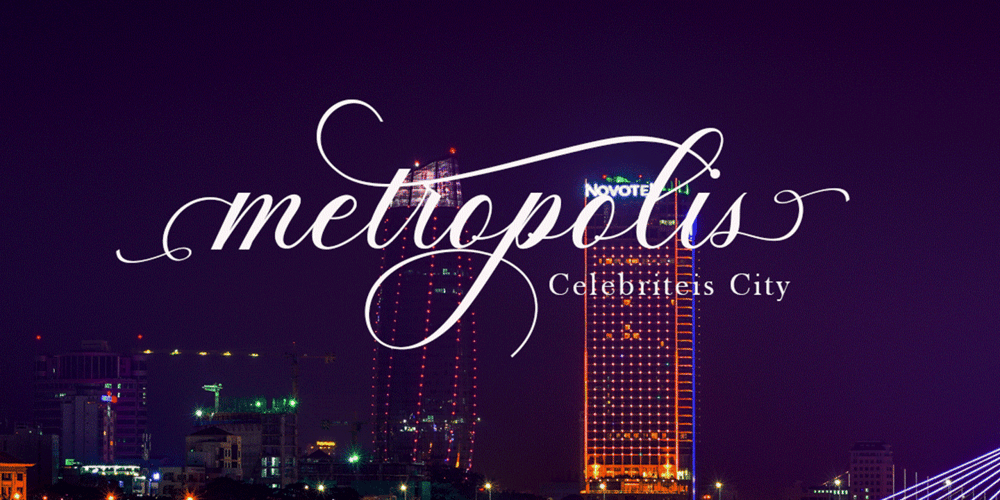
Anitha
Anitha font
Anitha Font Family was designed by Ront Jorse and published by Jorsetype. Anitha contains 1 styles and family package options. Anitha is another lovely modern calligraphy typefaces, which is combining the style of classic calligraphy with an modern style. combines from copperplate to contemporary typeface with a dancing baseline, modern and elegant touch. Anitha features 496 glyphs and alternate characters Include . including initial and terminal letters, alternates, ligatures and multiple language support..